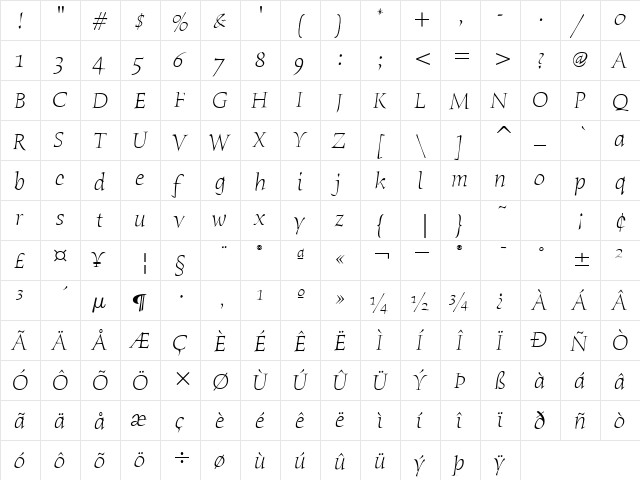
HumanaSerifITC-Light LightItalic Font Preview
Design Context for HumanaSerifITC-Light Typeface
HumanaSerifITC-Light carries the refined structure of traditional serif typography, with bracketed terminals and considered proportions that communicate credibility and craft. The slanted form adds forward momentum and visual energy. Its slender proportions lend an understated elegance to any composition.
Pro Tip: Set HumanaSerifITC-Light at slightly larger body copy sizes than you would a regular-weight serif to compensate for its delicate stroke contrast.